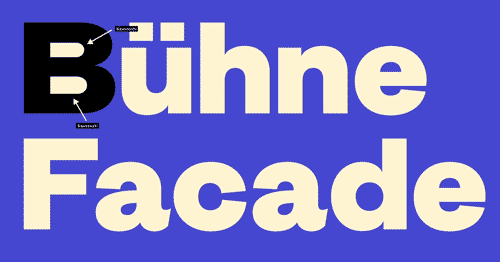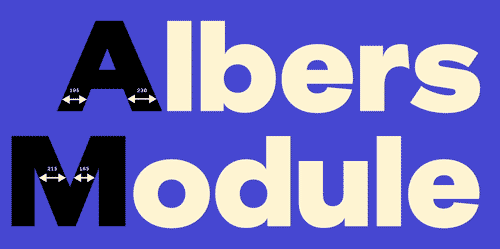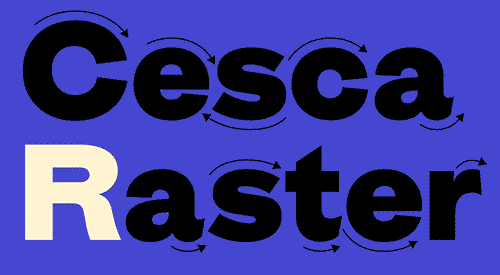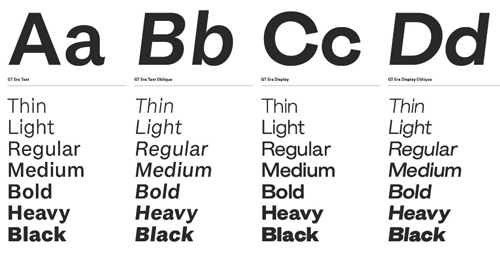
Pre-Modern Grotesk Typefaces
Designed by Thierry Blancpain with Grilli Type | Released in 2025
- GT Era reimagines the warmth and idiosyncrasies of early grotesk typefaces for our own era. These pre-modernist tools were being pushed to their extremes in the radical designs of the modernist movements—like Bauhaus and De Stijl—of the period. The typeface shuns neutrality and embraces friction, championing recognition over uniformity and flavor over conformity.
- GT Era, released in 2025 by Grilli Type AG in Luzern, Switzerland, is a grotesque sans-serif typeface offered in 8 weights, display and text styles, and upright and oblique slants. Its distinguished by a warmth characteristic of pre-modern grotesk typefaces but adapted to contemporary applications.